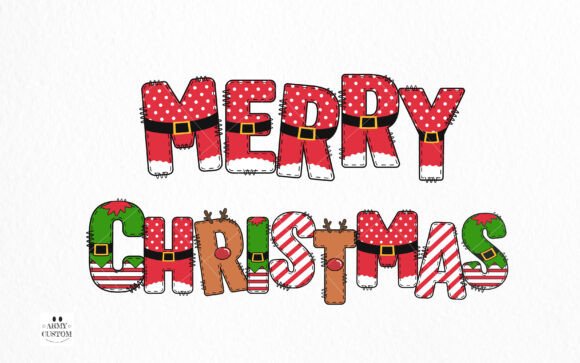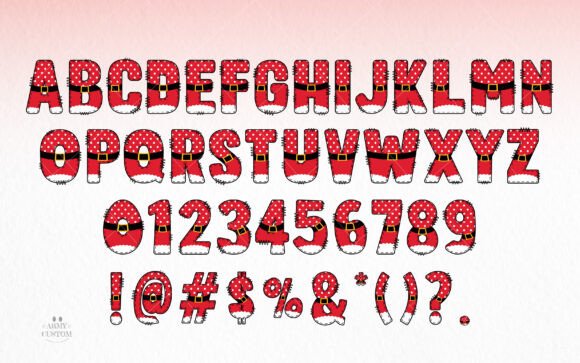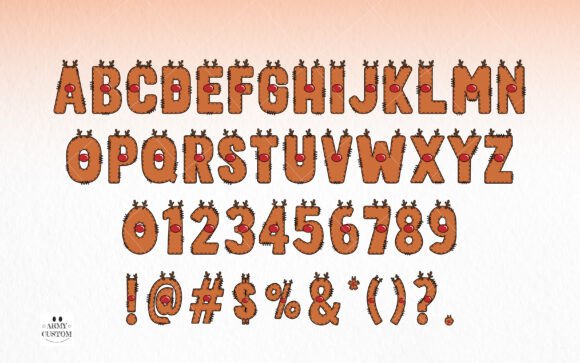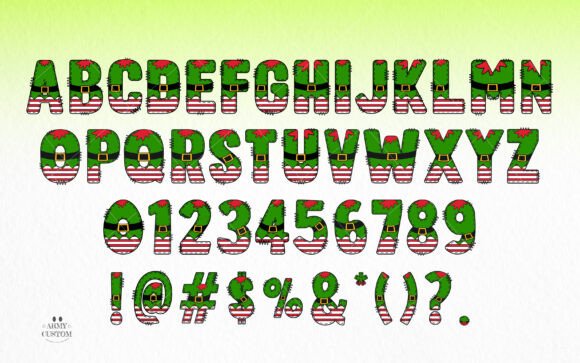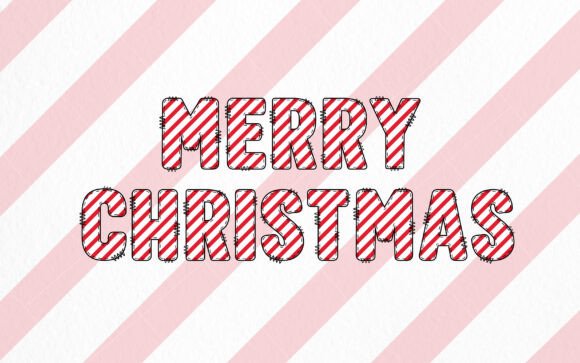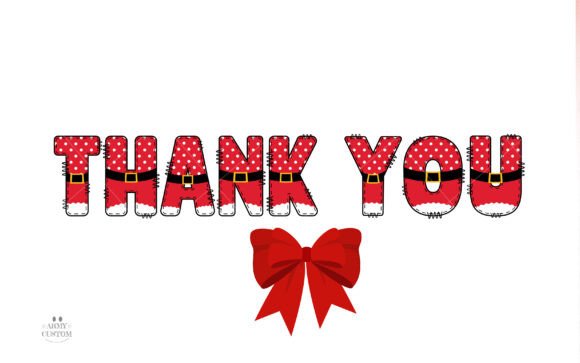
Elevate Your Festive Projects with the Delightful Christmas Army Bundle Font
The holiday season is upon us, and with it comes the joy of creating festive projects that bring cheer and merriment to our loved ones. As designers and crafters, we’re always on the lookout for unique and playful fonts to add a touch of magic to our holiday designs. That’s where the Christmas Army Bundle Font comes in – a delightful font that’s sure to become a staple in your holiday design toolkit.
A Playful Addition to Your Holiday Design Toolkit
The Christmas Army Bundle Font is a whimsical font that’s infused with a sense of playfulness and fun. Its jovial style makes it an ideal choice for creating vibrant holiday decorations, adding a dash of merriment to any design project, or simply spreading holiday cheer. With this font, every letter spelled out becomes a joyous celebration, inspired by the adorable antics of Santa’s helpers.
What Makes the Christmas Army Bundle Font So Special?
This charming font is designed to bring the spirit of the holiday season to life. Its unique and playful style is reminiscent of the elfish helpers that make the holiday season so magical. Whether you’re creating holiday cards, decorations, or gifts, this font is sure to add a touch of whimsy and fun to your projects.
Tips and Ideas for Using the Christmas Army Bundle Font
Now that you’ve got the Christmas Army Bundle Font, it’s time to get creative! Here are a few tips and ideas to get you started:
- Create festive holiday cards and invitations with a personal touch.
- Design vibrant holiday decorations, such as garlands, banners, and signs.
- Add a dash of merriment to your holiday gift tags and wrapping paper.
- Use the font to create fun and playful holiday-themed crafts, such as ornaments and gift toppers.
Why Choose the Christmas Army Bundle Font?
With so many fonts to choose from, why should you choose the Christmas Army Bundle Font? Here are just a few reasons:
- Unique and playful style that’s sure to stand out.
- Whimsical and fun design that’s perfect for the holiday season.